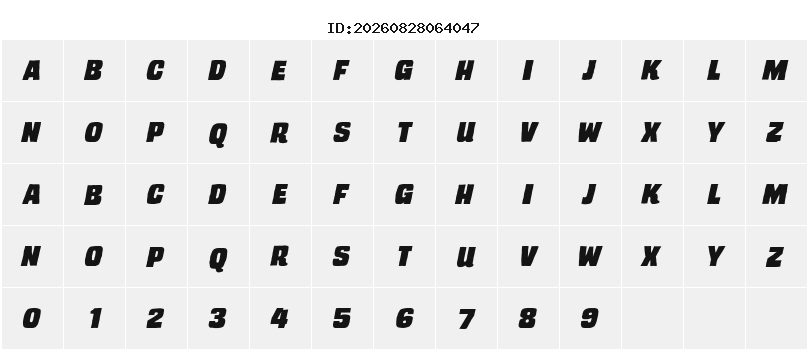
TrashCinema BB Preview
• Font Name: TrashCinema BB
• Font ID: NatePiekos.Blambot.com: TrashCinema BB Italic: 2012
• Full Font Name: TrashCinema BB Italic
• PostScript Name: TrashCinemaBB-Italic
• Character Count: 113
• Designer: Nate Piekos
• Manufacturer: Nate Piekos. Blambot.com
About TrashCinema BB.ttf
TrashCinema BB.ttf is a modern, elegant sans-serif font designed for ultimate readability and visual harmony. Perfect for branding, headlines, web design, and print materials.